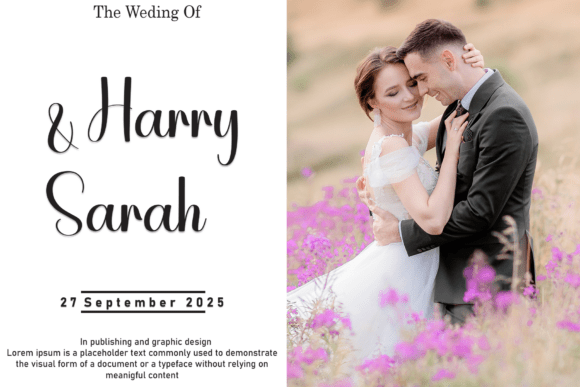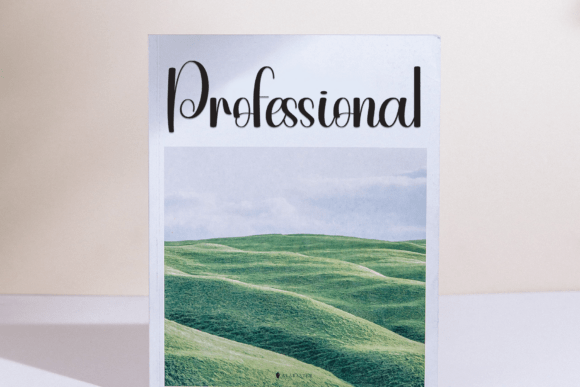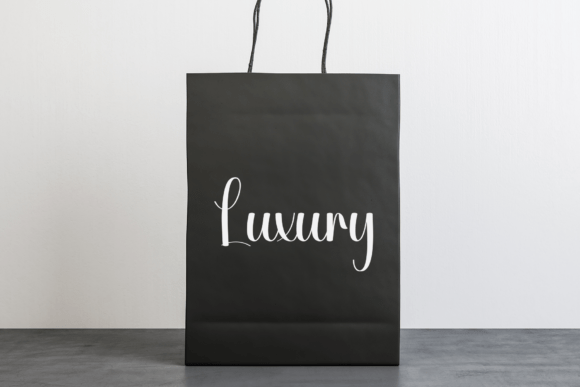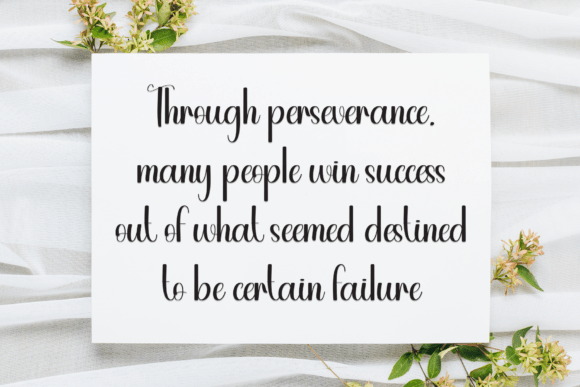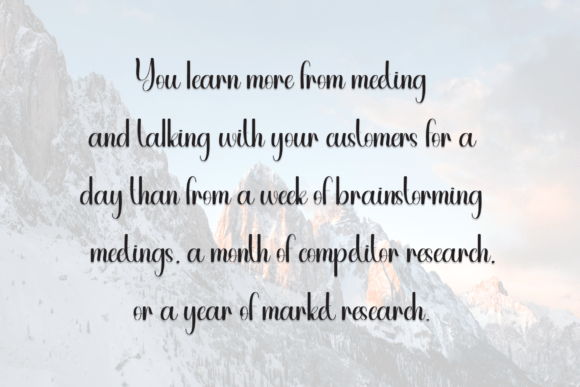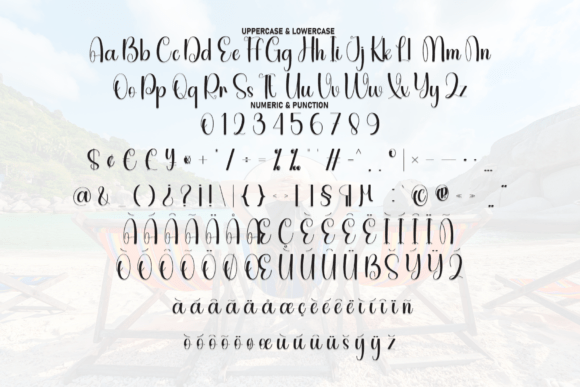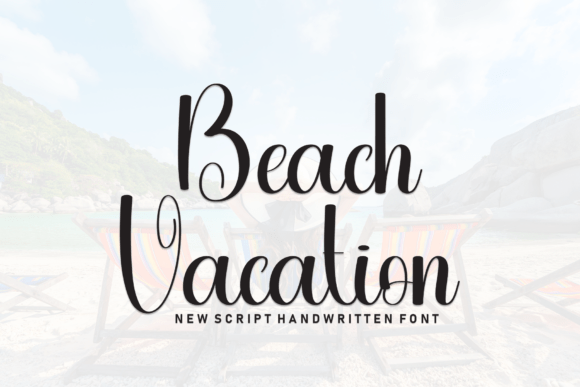
Introducing Beach Vacation Font: Elevate Your Designs with Elegance and Flair
Are you tired of using the same old fonts in your designs? Look no further! Beach Vacation Font is a stylish script font that exudes artistic flair and contemporary elegance, perfect for designers and crafters looking to add a touch of sophistication to their work. With its fluid brush strokes, dynamic curves, and expressive letterforms, this font captures the essence of hand-painted calligraphy with a modern twist.
The Perfect Blend of Art and Elegance
Beach Vacation Font is designed to bring a sense of creativity and luxury to any design project. Its unique blend of fluid brush strokes and modern letterforms makes it perfect for a wide range of applications, from logos and invitations to packaging and social media graphics. Whether you’re a designer, crafter, or simply a DIY enthusiast, this font is sure to elevate your work and leave a lasting impression.
Key Features of Beach Vacation Font
- Fluid Brush Strokes: Beach Vacation Font features fluid brush strokes that give it a natural, hand-painted look and feel.
- Dynamic Curves: The font’s dynamic curves add a sense of movement and energy to any design.
- Expressive Letterforms: Each letterform is carefully crafted to convey a sense of elegance and sophistication.
- Modern Twist: The font’s modern twist on traditional calligraphy makes it perfect for contemporary design projects.
Why Choose Beach Vacation Font?
- Versatility: Beach Vacation Font is incredibly versatile, making it perfect for a wide range of design projects.
- Visual Impact: The font’s unique blend of fluid brush strokes and modern letterforms makes it sure to grab attention and leave a lasting impression.
- Elegance: Beach Vacation Font exudes elegance and sophistication, making it perfect for high-end design projects.
- Experiment with Different Sizes: Beach Vacation Font looks great in a variety of sizes, from large headings to smaller body text.
- Play with Color: The font’s fluid brush strokes and modern letterforms look great in a wide range of colors.
Beach Vacation Font is a stylish script font that exudes artistic flair and contemporary elegance. With its fluid brush strokes, dynamic curves, and expressive letterforms, it’s perfect for designers and crafters looking to add a touch of sophistication to their work. Whether you’re creating logos, invitations, packaging, or social media graphics, Beach Vacation Font is sure to elevate your designs and leave a lasting impression.